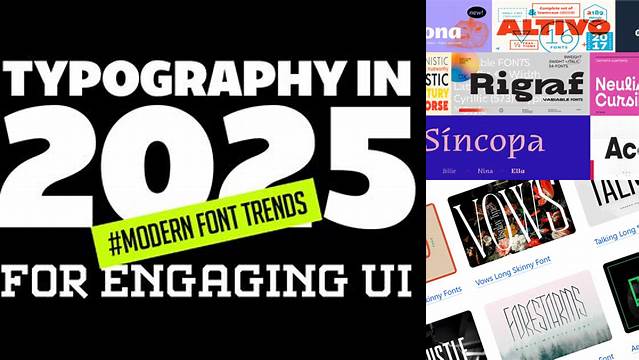
Modern Website Fonts: Top Picks For 2025
Hey guys! Let's dive into the fascinating world of modern website fonts for 2025. In this comprehensive guide, we'll explore the typefaces that are set to dominate the digital landscape, ensuring your website not only looks cutting-edge but also provides an optimal user experience. Choosing the right fonts is crucial because they play a significant role in conveying your brand's personality, enhancing readability, and creating a lasting impression on your visitors. We'll explore various font trends, including sans-serif, serif, display fonts, and variable fonts, providing you with insights into how to use them effectively. So, buckle up and get ready to discover the fonts that will make your website stand out in 2025!
The Importance of Font Choice in Web Design
The choice of fonts in web design is paramount, guys, impacting everything from user experience to brand perception. Typography isn't just about making words visible; it’s about creating a cohesive visual language that speaks to your audience. A well-chosen font can enhance readability, ensuring that visitors can easily consume your content. Poor font choices, on the other hand, can lead to eye strain, frustration, and ultimately, a high bounce rate. Think about it – would you stick around on a website if the text was difficult to read? Probably not!
Furthermore, fonts play a critical role in shaping your brand identity. Each typeface has its unique personality, and selecting one that aligns with your brand's values and tone is crucial. For instance, a sleek sans-serif font might be perfect for a tech startup aiming to project a modern, minimalist image. Conversely, a classic serif font could be ideal for a traditional brand that wants to convey trustworthiness and sophistication. Consider brands like Apple, which uses a clean, modern sans-serif font to reinforce its minimalist aesthetic, or The New York Times, which employs a traditional serif font to convey authority and credibility.
Consistency in font usage across your website is also vital. Using too many different fonts can create a chaotic and unprofessional look. Sticking to a harmonious font pairing – typically a primary font for body text and a secondary font for headings or accents – helps maintain a consistent visual identity and enhances the overall user experience. This consistency extends beyond the website itself, influencing your brand's visual communication across all platforms, from social media to print materials. By carefully considering your font choices, you can create a website that not only looks great but also effectively communicates your brand's message and values.
Key Font Trends to Watch in 2025
Alright, let's dive into the font trends you need to keep an eye on for 2025! The world of typography is constantly evolving, and staying ahead of the curve is essential for modern web design. We're seeing a fascinating blend of classic styles with contemporary twists, as well as the rise of innovative technologies that are changing how we use fonts online. So, what's hot? Let’s break it down.
Variable Fonts
First up, variable fonts are a game-changer. These fonts are like the Swiss Army knives of typography, guys! Instead of needing a separate font file for each weight (like light, regular, bold), a variable font contains all this information in a single file. This means smaller file sizes, faster loading times, and greater flexibility in design. Imagine being able to fine-tune the weight, width, and other characteristics of a font with precision – that's the power of variable fonts. In 2025, expect to see variable fonts becoming even more prevalent as designers leverage their efficiency and versatility to create dynamic and responsive typography.
Bold and Expressive Typefaces
Next, bold and expressive typefaces are making a huge statement. We're talking big, attention-grabbing fonts that aren’t afraid to take up space. These fonts are perfect for headlines, banners, and other prominent elements where you want to make an impact. Think chunky sans-serifs, retro-inspired serifs, and even hand-drawn styles. The key is to use them strategically – a little goes a long way. Pair a bold font with a more understated typeface for body text to create a balanced and visually engaging design.
Neo-Grotesque Sans-Serifs
Neo-grotesque sans-serifs continue to be a staple in modern web design. These fonts are clean, minimalist, and incredibly versatile, making them a go-to choice for a wide range of projects. Their simplicity ensures excellent readability, and their neutral aesthetic allows them to blend seamlessly with various design styles. Popular neo-grotesque options include fonts like Inter, Roboto, and Open Sans. Expect to see these fonts used extensively in 2025, especially in designs that prioritize clarity and functionality.
Serif Fonts with Character
Serif fonts are making a comeback, but with a modern twist. We're not just talking about the traditional Times New Roman; these serifs have character! Think serifs with unique details, such as sharp angles, unexpected curves, or interesting ink traps. These fonts add a touch of elegance and personality to your designs, making them perfect for brands that want to convey a sense of sophistication and history. Keep an eye out for serifs that blend classic charm with contemporary flair.
Experimental and Unique Fonts
Finally, experimental and unique fonts are pushing the boundaries of typography. These fonts break the mold, offering unconventional shapes, quirky details, and a playful vibe. They’re perfect for projects that aim to stand out and make a statement. However, use them with caution – these fonts are best suited for specific design elements, like logos or headings, rather than large blocks of text. In 2025, expect to see more designers embracing these experimental typefaces to add a touch of individuality and creativity to their websites.
To ensure your website loads quickly and provides a smooth user experience, it’s important to optimize your font loading. Here are a few tips: